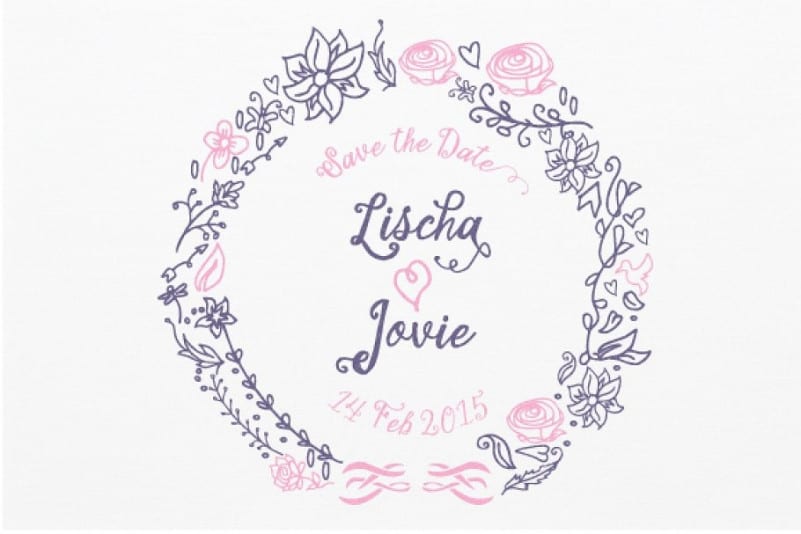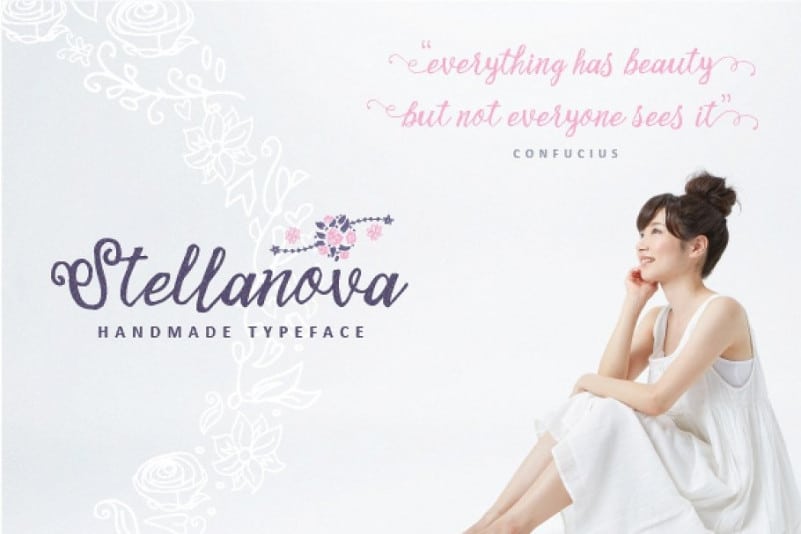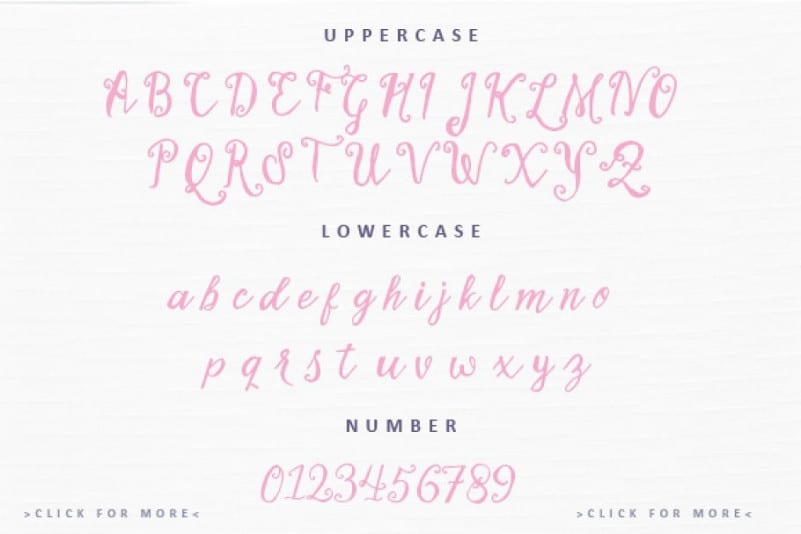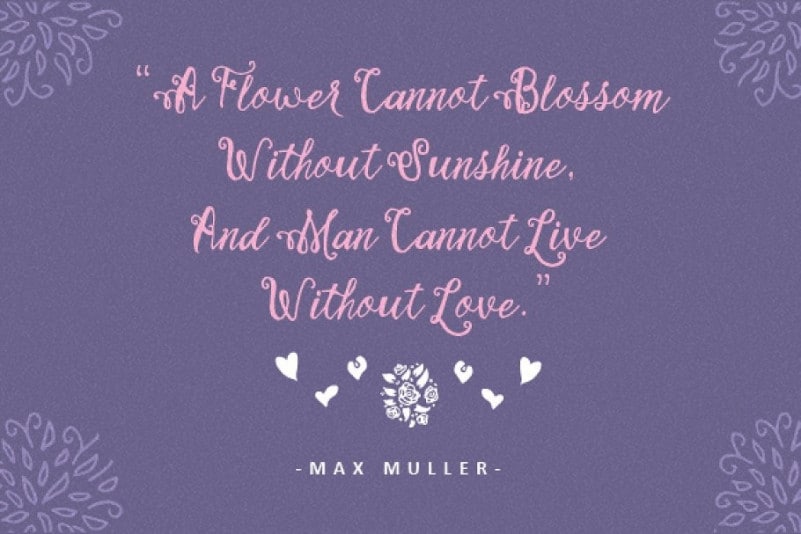
Stellanova Script Font Demo
Stellanova Script Font Demo is a lovely and timeless handwritten font. It is the right choice for creating eye-catching logos, branding, and quotes. Every letter has a unique and beautiful touch, which will make your design come alive! It’s a handmade script typeface. It’s suitable for wedding invitation, any greeting cards, retro / vintage design style, or any design that needs natural and personal touch. Mix and match the alternate characters to add an attractive message to your design.